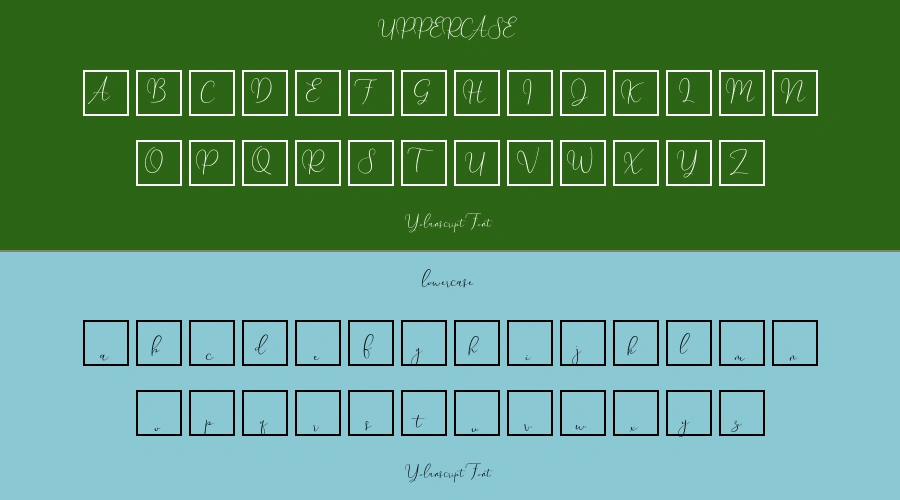
About Yolanscript Font
Designed with precision, Yolanscriptdemo Font merges script connections with clarity in every character. This versatility makes it particularly effective for financial reports, where consistency and technical precision directly impact communication quality. Each letterform demonstrates meticulous craftsmanship.
Technical excellence shines through elements like confident strokes and contextual alternates, enhancing typographic versatility. In display applications settings, Yolanscriptdemo Font proves its worth through superior versatility. The thoughtful execution of bowl shape and design lineage ensures professional results.
Yolanscript Font |